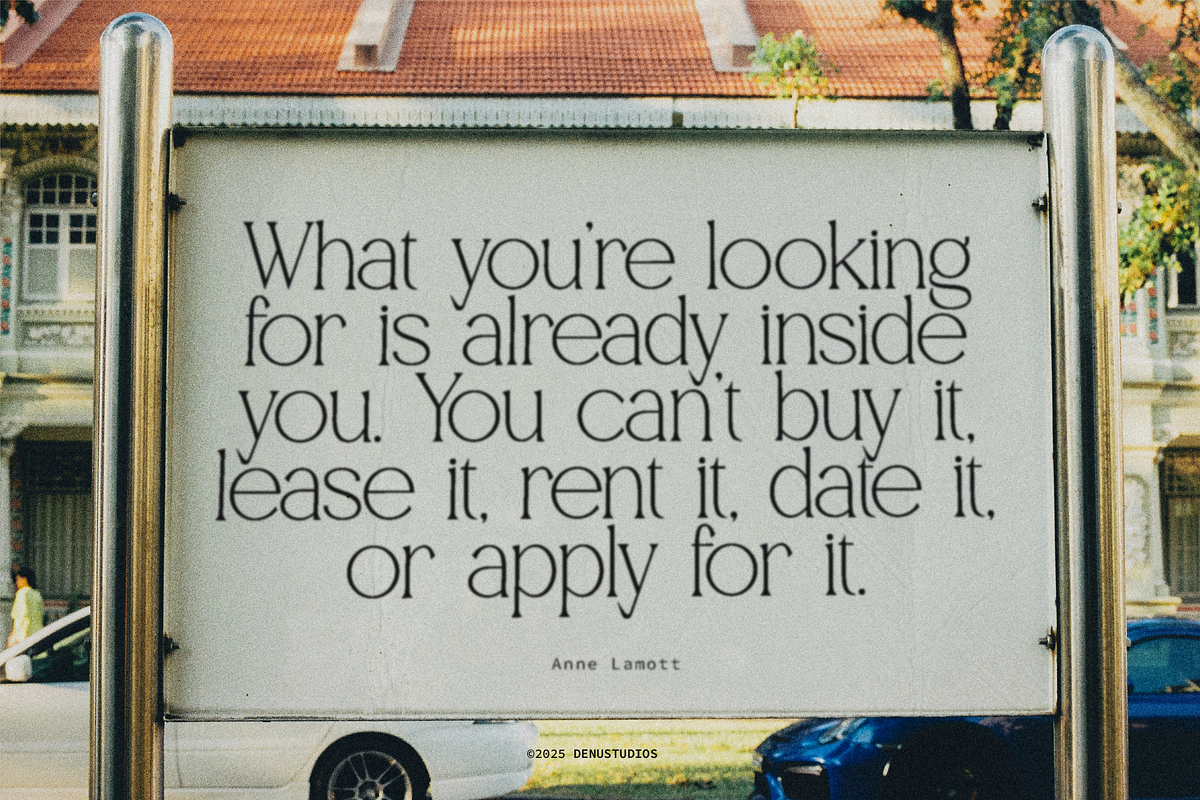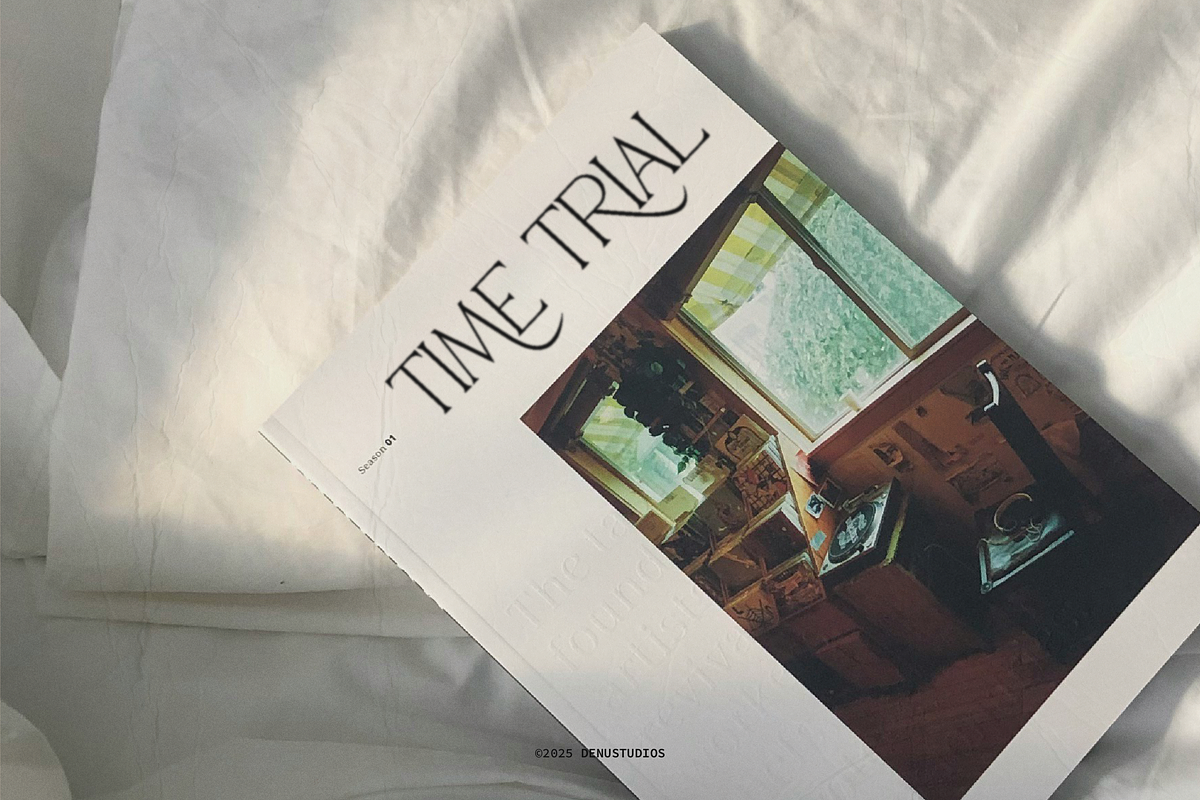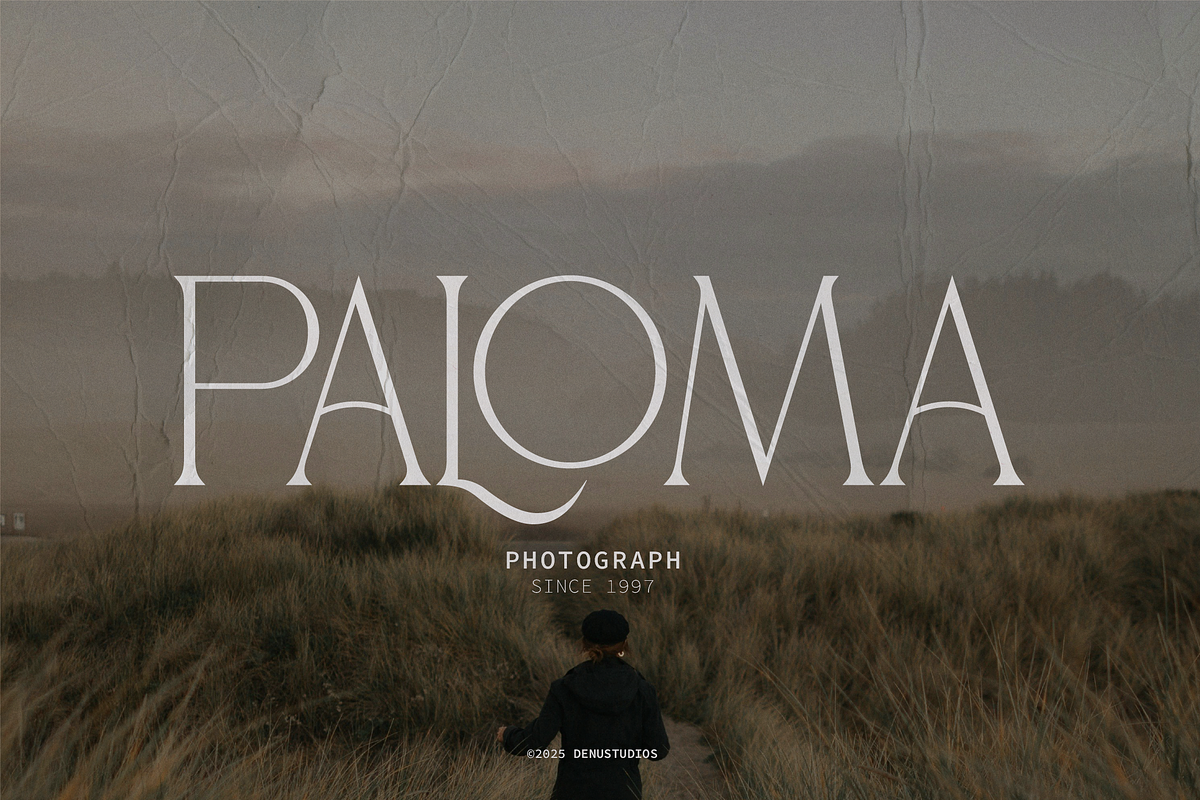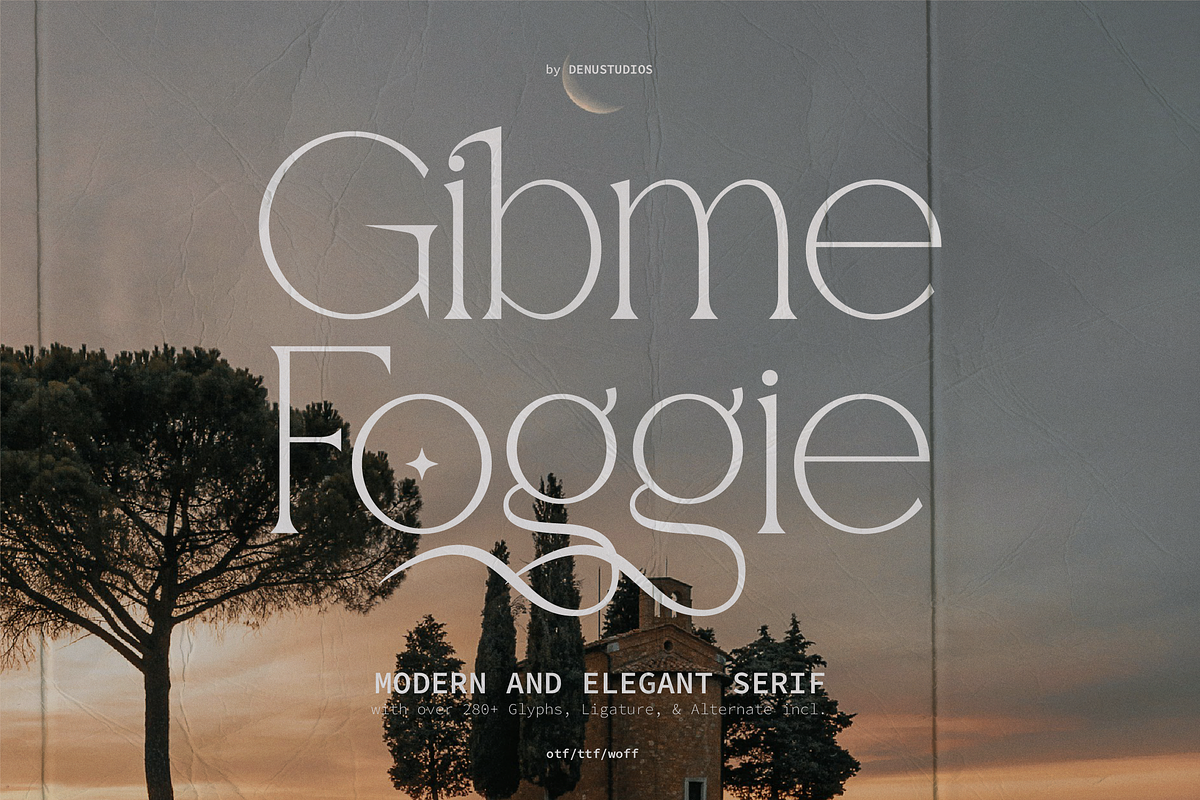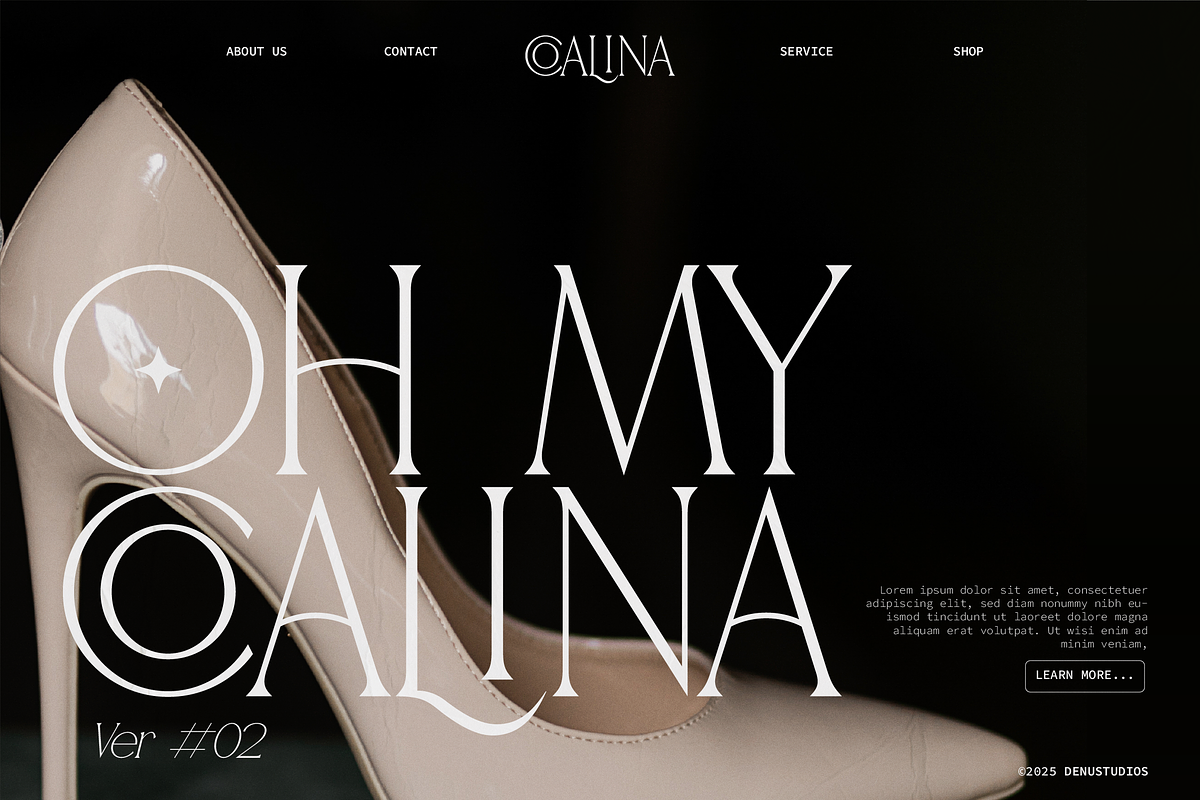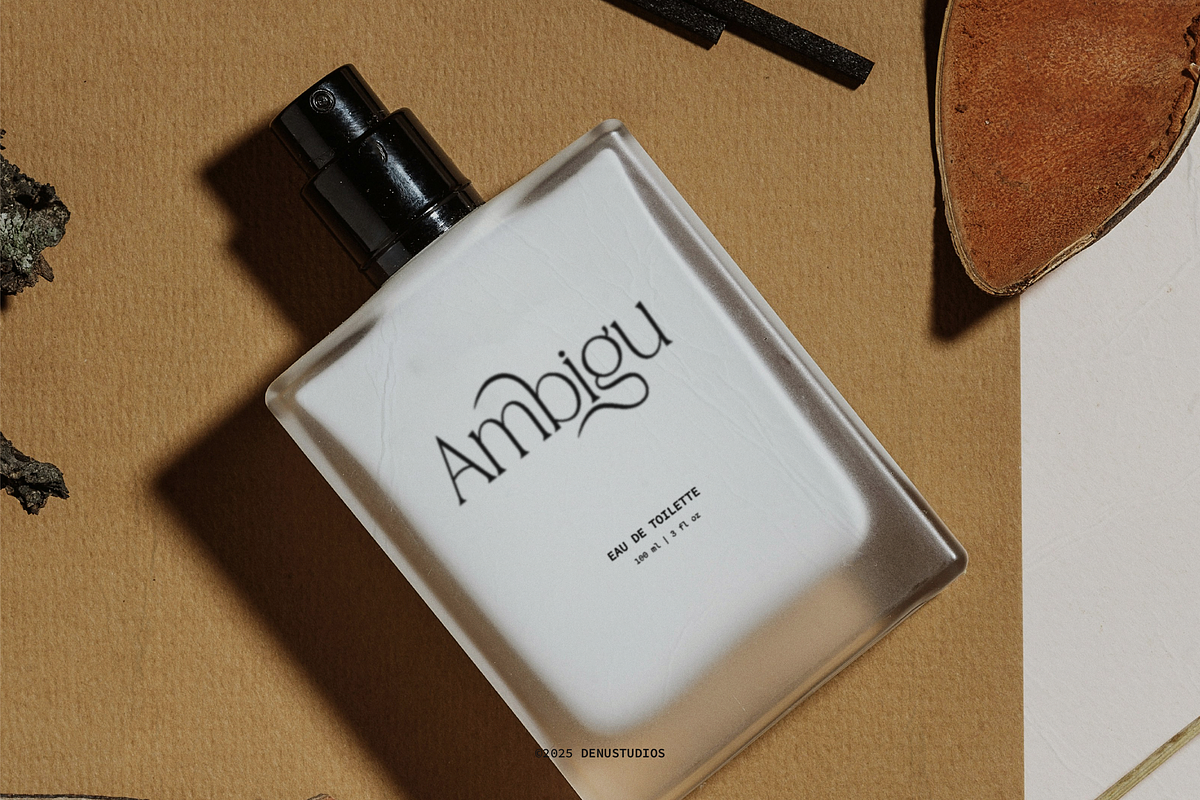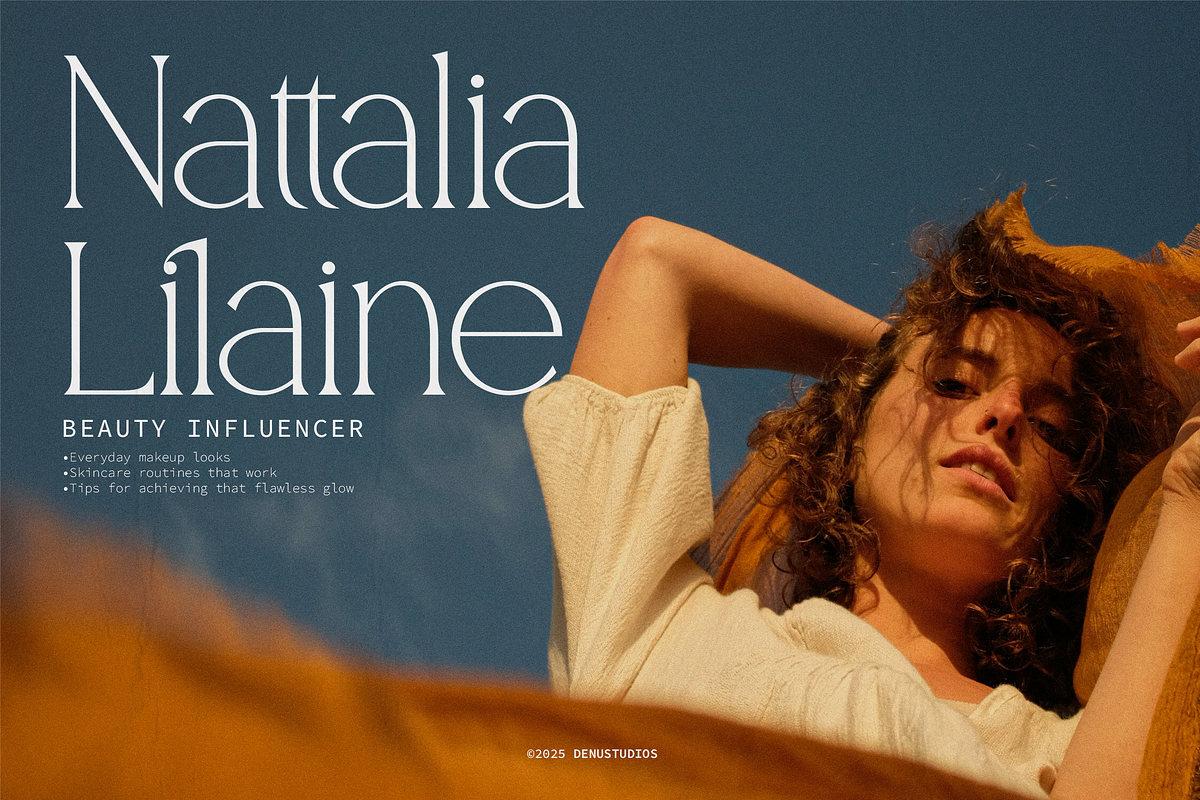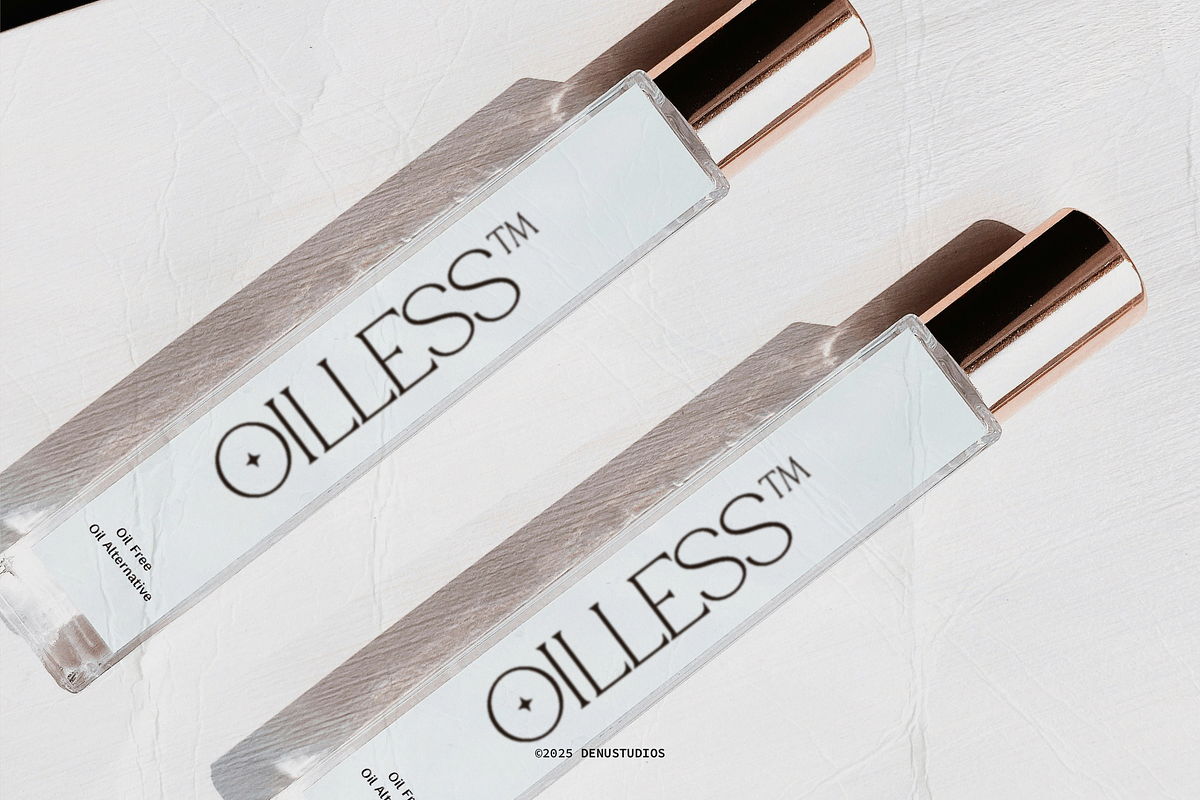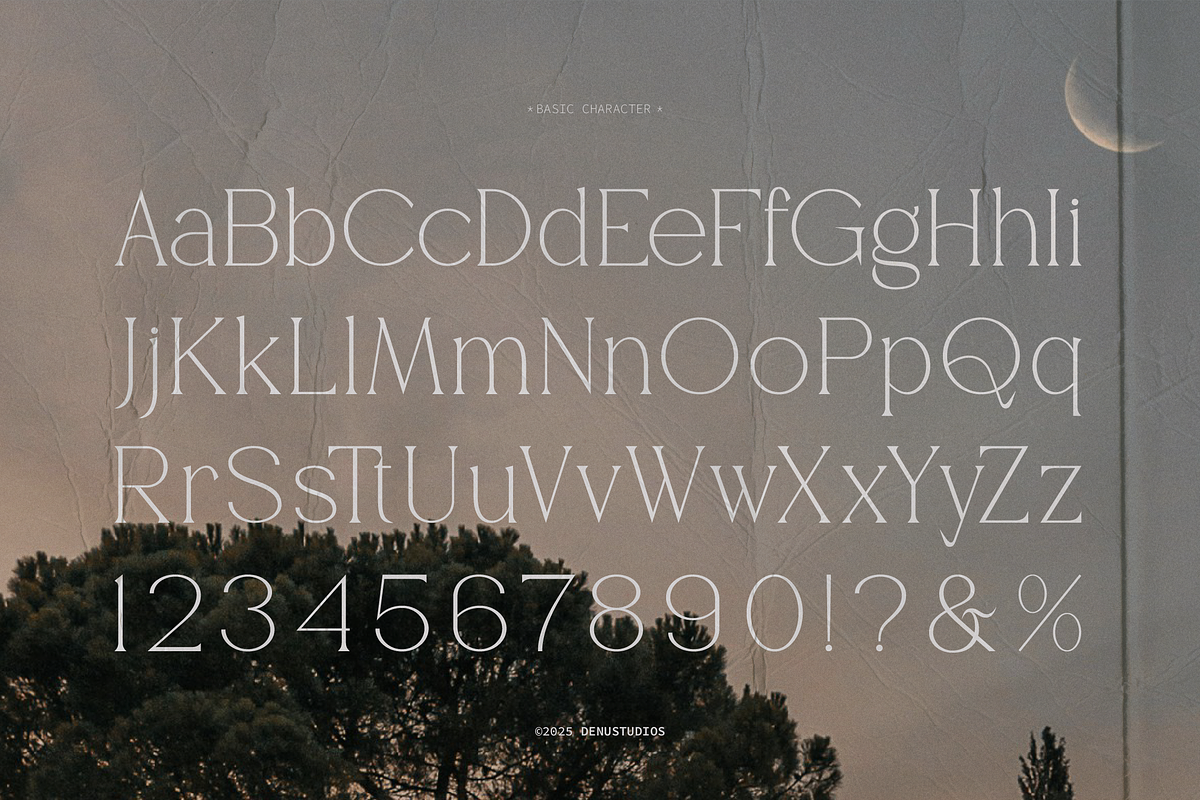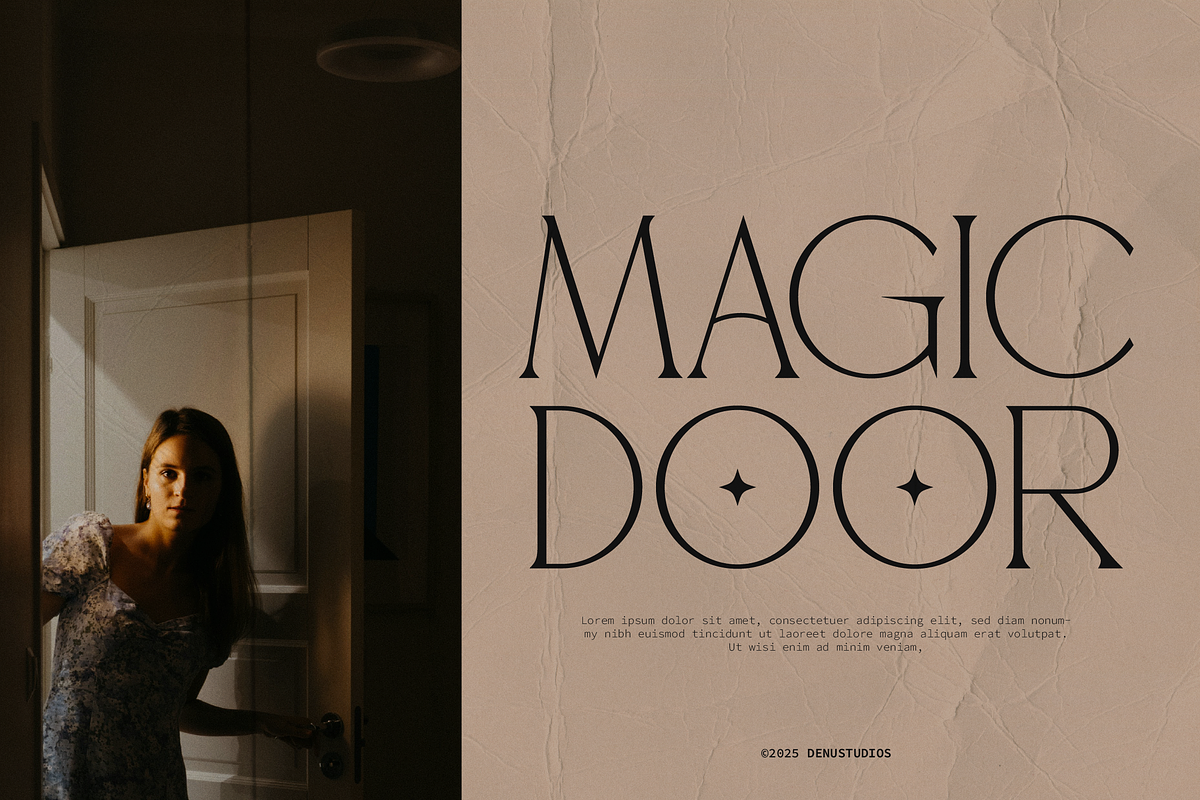
Gibme Foggie | Modern Elegant Serif
Gibme Foggie | Modern Elegant Serif, from Denustudios, suitable for any projects such as: logos, branding projects, homeware designs, product packaging, mugs, quotes, posters, shopping bags, t-shirts, book covers, name card, invitation cards, greeting cards, label, photography, watermark, special events, and all your other lovely projects that need a Modern Elegant Serif taste.